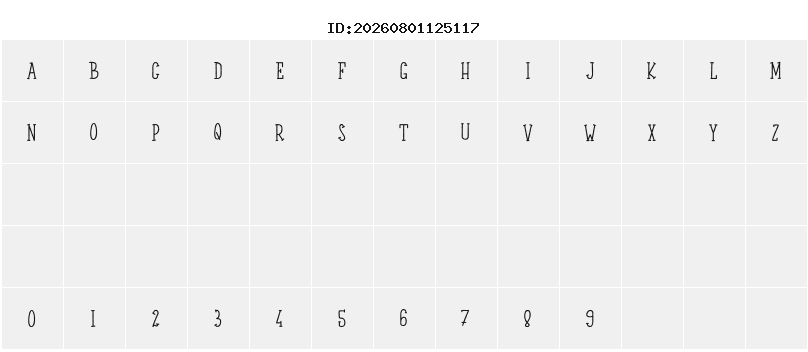
• Font Name: LE PRINCE SUR LE MOUTON
About LE PRINCE SUR LE MOUTON.ttf
LE PRINCE SUR LE MOUTON.ttf is a modern, elegant sans-serif font designed for ultimate readability and visual harmony. Perfect for branding, headlines, web design, and print materials.